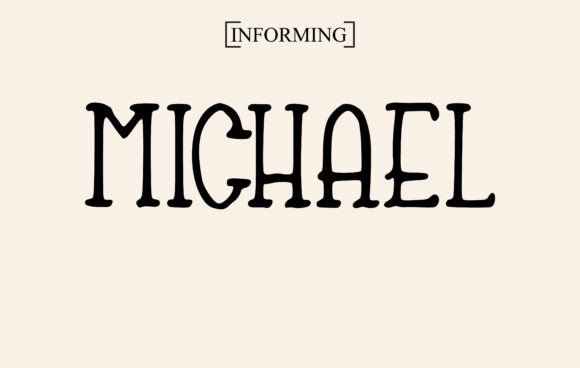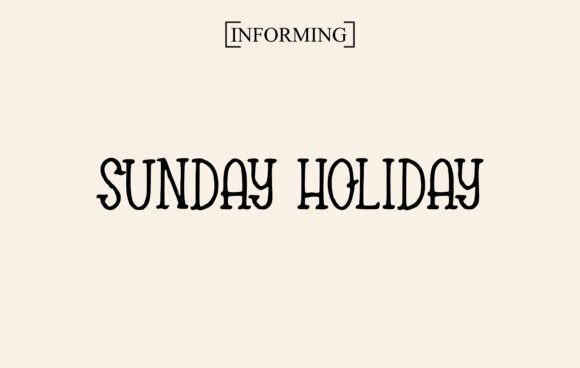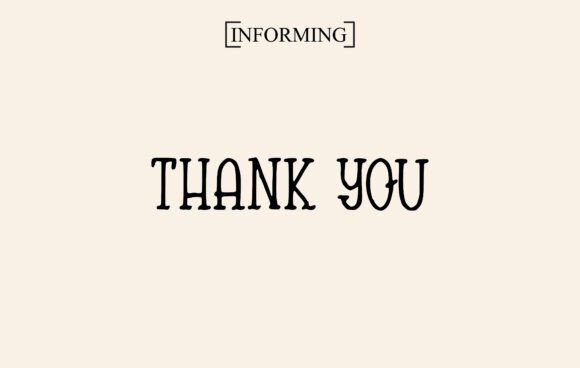
Michael Font: A Cute Display Font for Cricut & Crafts
About the Michael Font
Add a touch of class to your work with the Michael Font, a truly exceptional typeface. Michael is designed to be a true favorite; this font has the potential to take your creative ideas to the highest level
Michael’s strong, confident strokes make it ideal for headlines, logos, and short impactful statements in branding materials. It excels in posters and packaging where bold readability is key. However, its weight and slightly condensed design make it less suitable for extended body text or UI elements where legibility over long spans is crucial.
The font’s personality is best described as bold and modern. To complement this, consider pairing Michael with a clean sans-serif like Open Sans for body copy or a delicate script font like Great Vibes for added elegance in invitations or branding elements requiring a touch of sophistication.
For a more playful contrast, a geometric sans-serif such as Futura could be used. The choice will depend on the desired overall tone; however, these pairings will effectively showcase Michael’s strength while ensuring overall design harmony.
Michael Font Usage Examples
Michael Font Example